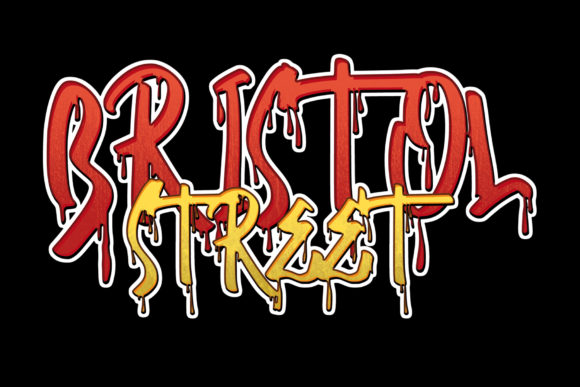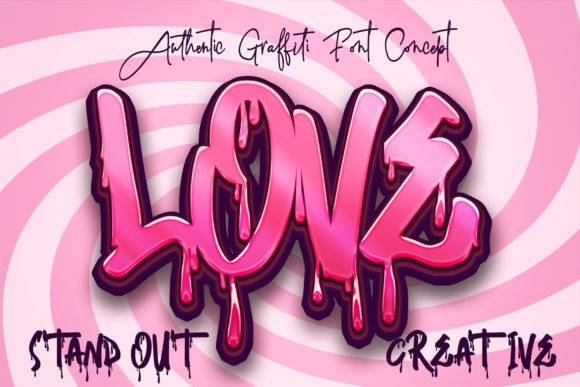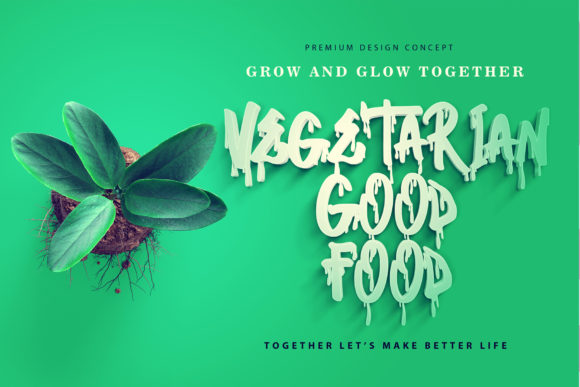
Introduction to Skater Boys Gravity Font
Remember that moment when you were scrolling through social media and stumbled upon a design that just made your heart skip a beat? Maybe it was the bold colors, the quirky font, or the overall aesthetic that just resonated with you. For me, it was the Skater Boys Gravity Font that caught my attention. Its unique style and high quality design made me want to learn more about this awesome graffiti font.
As a designer, I know how valuable it is to have a reliable design resource that can elevate your creative project to the next level. That’s exactly what the Skater Boys Gravity Font offers – a free download with a transparent background, perfect for adding a touch of graffiti flair to your designs.
Skater Boys Gravity Font
- Features a unique, hand-drawn style with a skater-inspired aesthetic
- Includes multiple font styles and weights for versatility
- Perfect for use in digital and print projects, including logos, graphics, and typography
Honest Review: Skater Boys Gravity Font
I recently stumbled upon the Skater Boys Gravity Font and was excited to try it out for my next creative project. As a designer, I appreciate high quality design resources, and this font definitely delivers. It’s free to download, which is always a bonus, and it comes with a transparent background, making it easy to work with.
What works well about this font is its unique, edgy feel. It’s perfect for projects that need a bit of attitude and style. The font is highly customizable, and it pairs well with a variety of other fonts and design elements.
- ✨ Unique and stylish design
- ✨ Highly customizable
However, there are a few limitations to consider. The font is only available in a few weights, which may limit its versatility in certain projects. Additionally, the font may not be suitable for projects that require a more professional or formal tone.
Overall, I’m impressed with the Skater Boys Gravity Font. It’s a great resource for designers who want to add a bit of edge and creativity to their projects. Just be aware of its limitations, and use it wisely.
To get the most out of the Skater Boys Gravity Font, experiment with different font sizes, colors, and combinations to create a unique look. This font is versatile and can be used in a variety of creative projects, from logos to social media graphics.
The Skater Boys Gravity Font is commonly used in graphic design, branding, and digital art projects. Its unique style and high-quality design make it perfect for adding a touch of edginess to your designs.